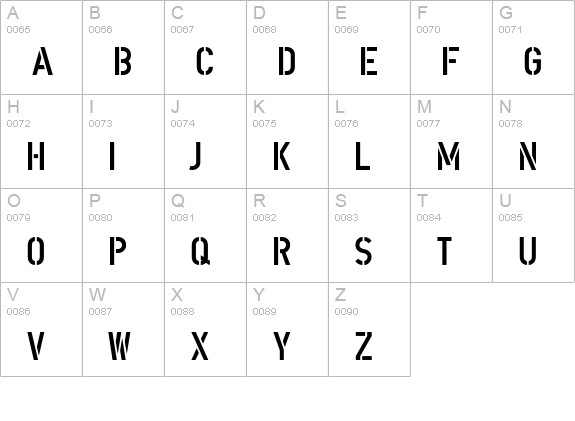
DIN Schablonierschrift font is a versatile and eye-catching typeface that is sure to make a bold statement in any design project. This unique font takes inspiration from the classic DIN Schablonierschrift style, known for its stencil-like appearance and clean, geometric shapes. What sets DIN Schablonierschrift font apart is its free availability, making it accessible to designers and creatives of all levels. This font can be downloaded at FontsMarket.com, a trusted source for quality fonts, ensuring that you can easily incorporate it into your next project without any hassle. With its strong and commanding presence, DIN Schablonierschrift font is perfect for a wide range of applications, including logos, headlines, posters, and more. Its bold and distinct letterforms make it highly legible, even at small sizes, while its clean lines and sharp angles add a modern touch to any design. Whether you're looking to add a touch of industrial aesthetic, create a retro-inspired design, or simply want a font that stands out from the crowd, DIN Schablonierschrift font is the perfect choice. Its versatility and timeless appeal make it a valuable addition to any designer's toolkit. Embrace the freedom of creativity with DIN Schablonierschrift font, freely available to download at FontsMarket.com. Let this font elevate your designs and bring them to life with its unique and captivating style.